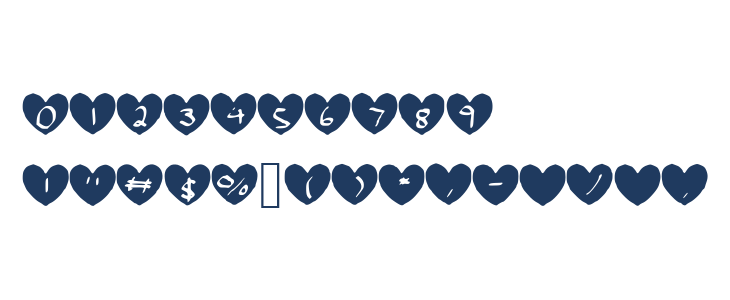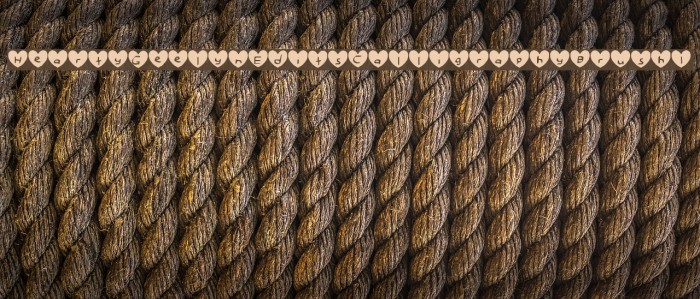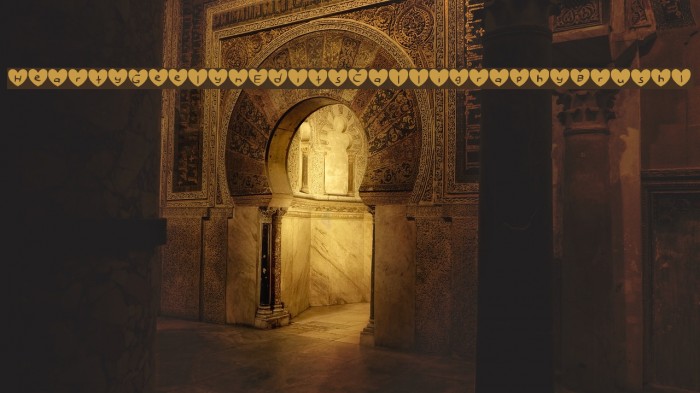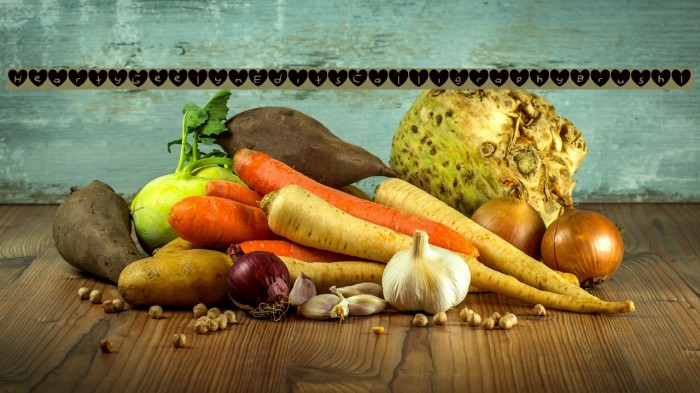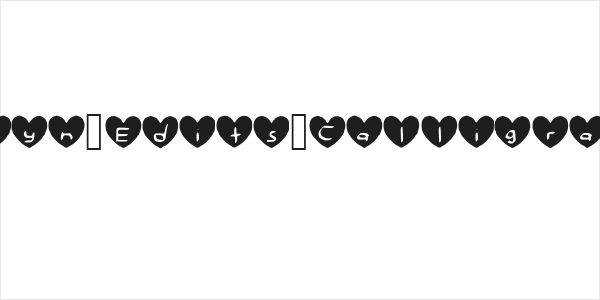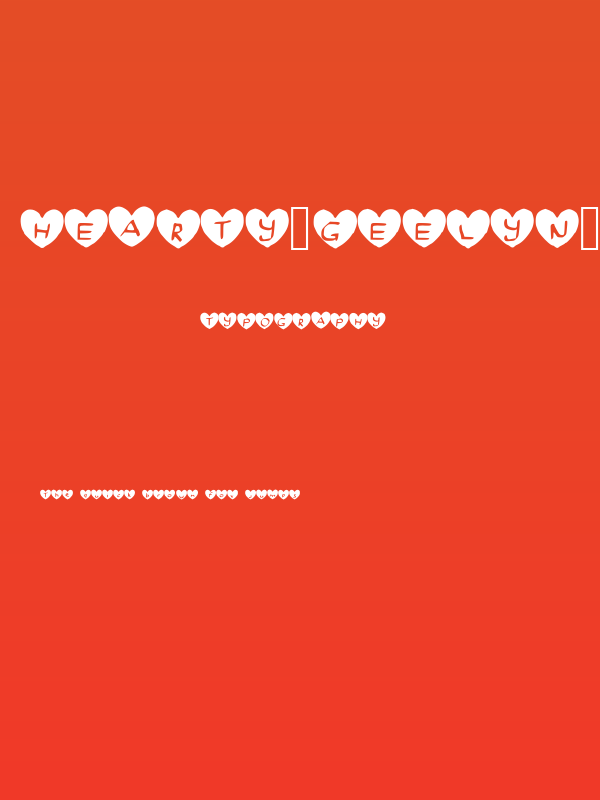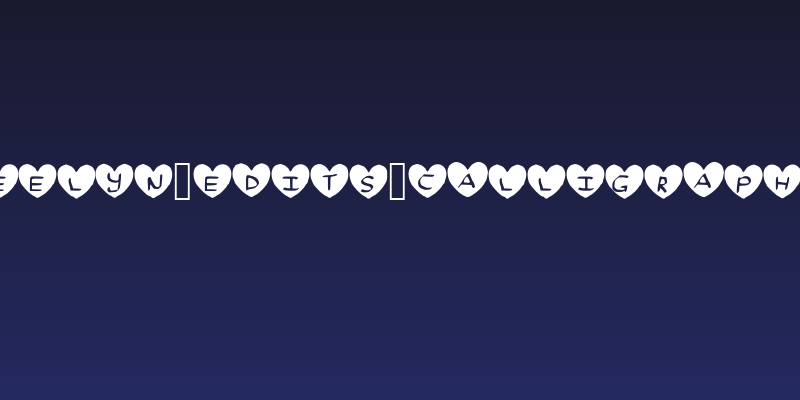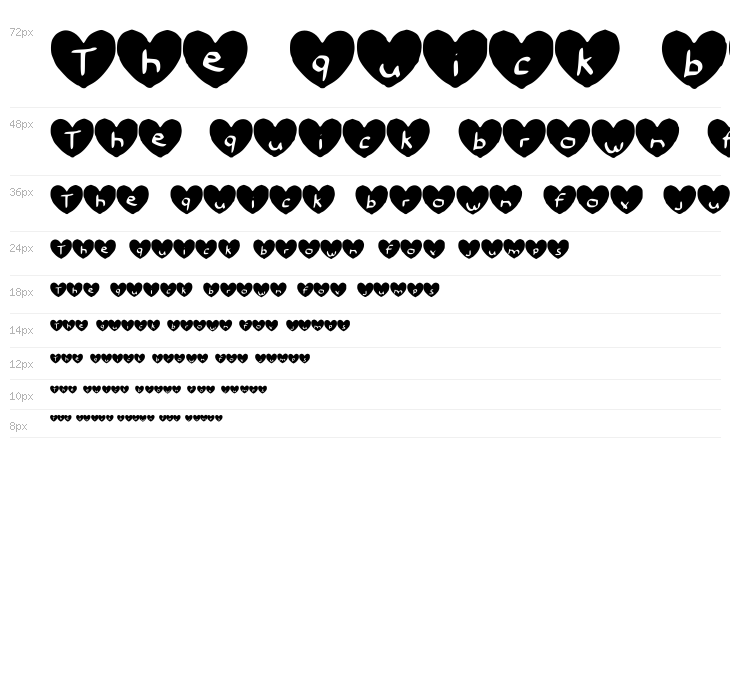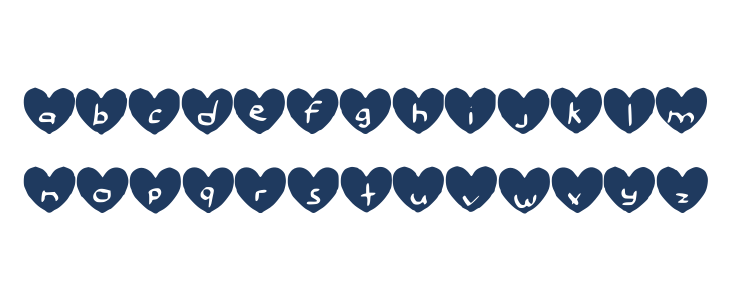
Hearty_Geelyn_Edits_Calligraphy_Brush_1 Font
Hearty_Geelyn_Edits_Calligraphy_Brush_1 Description
This playful and decorative font features characters enclosed within heart shapes, giving it a whimsical and romantic feel. The letters are bold and slightly irregular, adding a hand-drawn, artistic touch. Each character is distinct, with a casual brush-like appearance that suggests a sense of creativity and fun. The font includes both uppercase and lowercase letters, numbers, and a variety of special characters, all maintaining the heart motif. This unique style makes it ideal for projects that aim to convey warmth, affection, or a playful tone.
Use CaseHeadlines, Logos, Invitations
Proposed ProjectsIdeal for Valentine's Day cards, wedding invitations, love-themed posters, and playful branding projects.